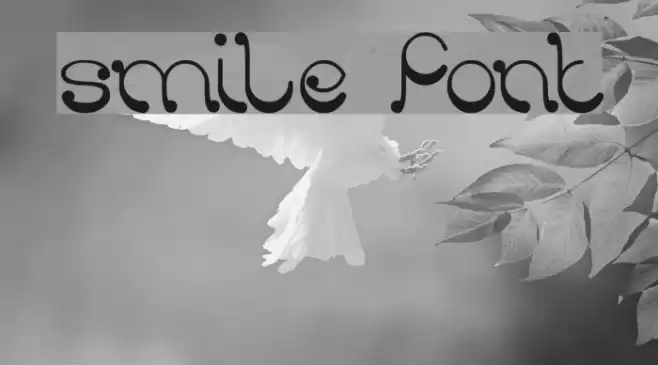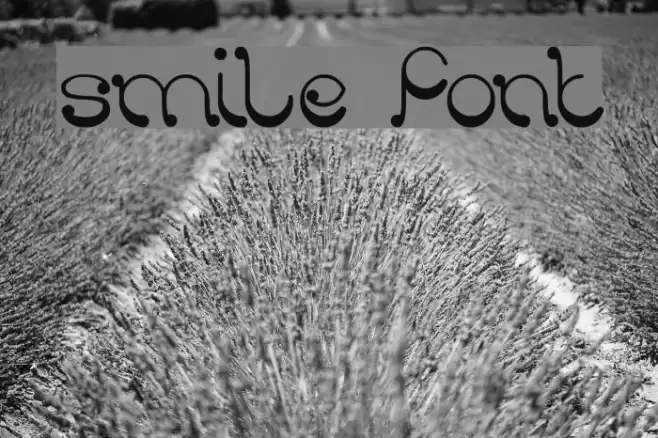
smile Font
smile Description
This font features a playful and whimsical design with rounded, bubbly characters that convey a sense of fun and creativity. The letters are interconnected with smooth curves and loops, giving it a unique and friendly appearance. The font maintains a consistent stroke width throughout, which adds to its cohesive look. The overall style is reminiscent of hand-drawn or doodle-like typography, making it ideal for projects that aim to capture a lighthearted and informal tone. Its distinct style makes it stand out, while still being legible and versatile for various applications.
A playful, bubbly font with interconnected, rounded characters from Uncategorized fonts.
- Proposed Projects: Ideal for children's books, playful branding, greeting cards, and creative posters.
- Overall Style: Playful, Whimsical
- Use Case: Headlines, Logos, Creative projects